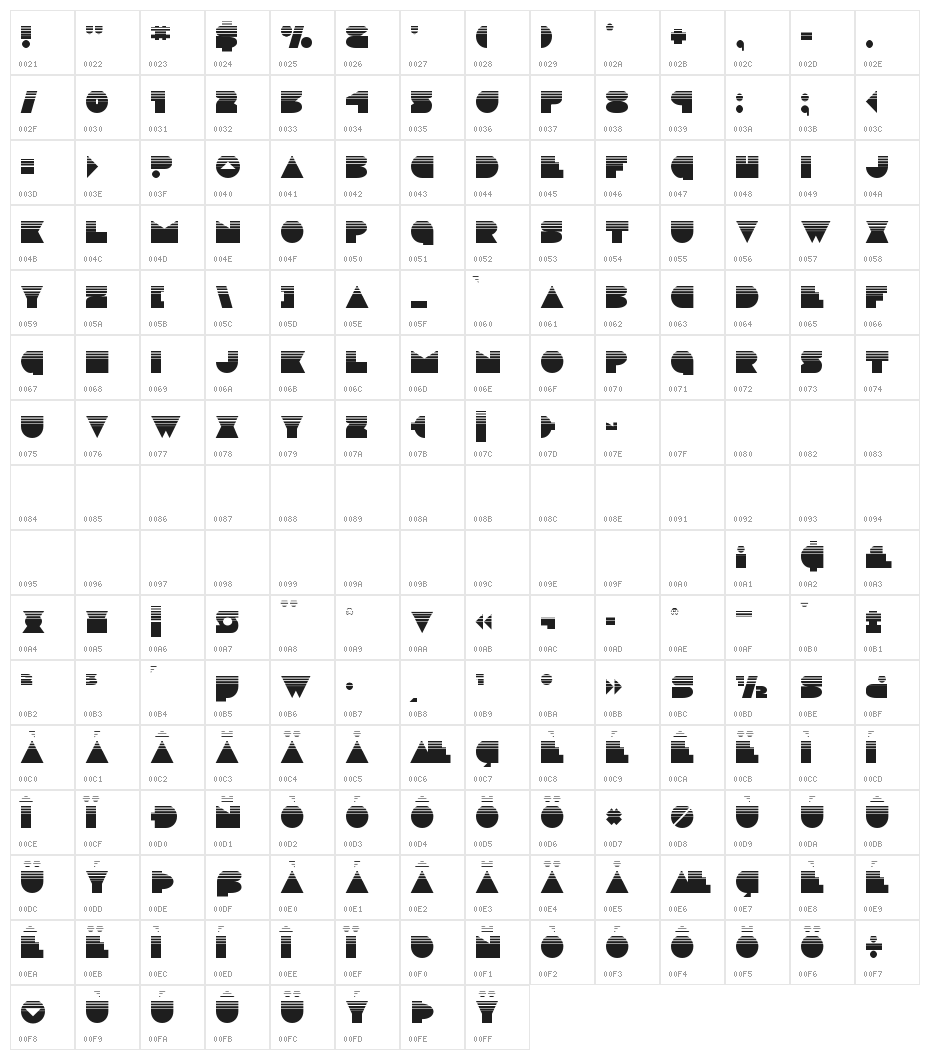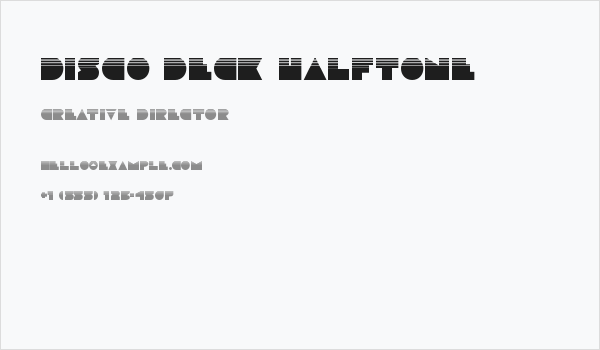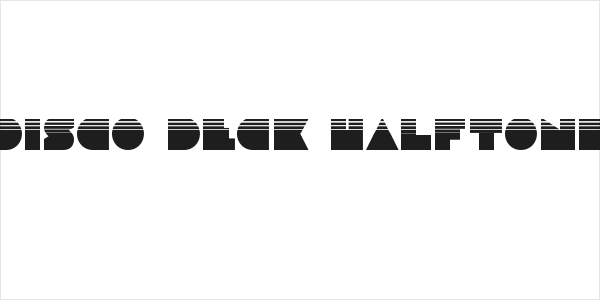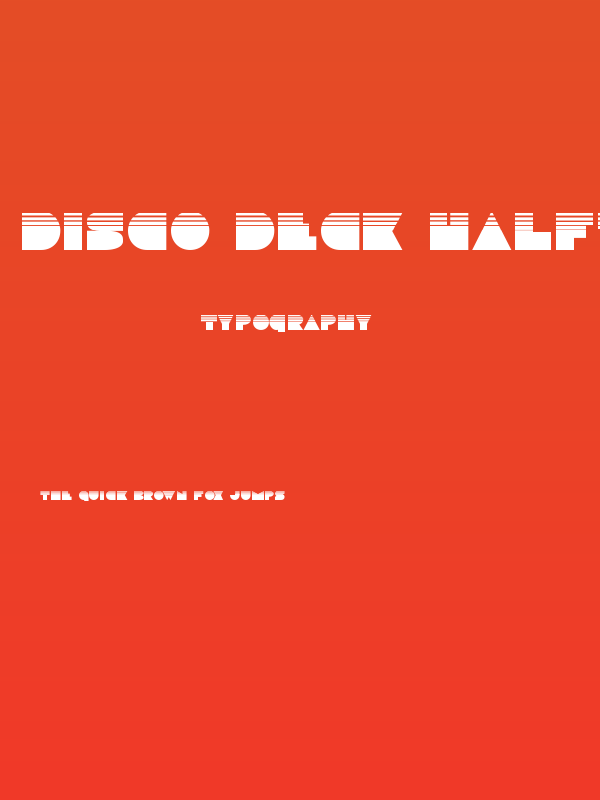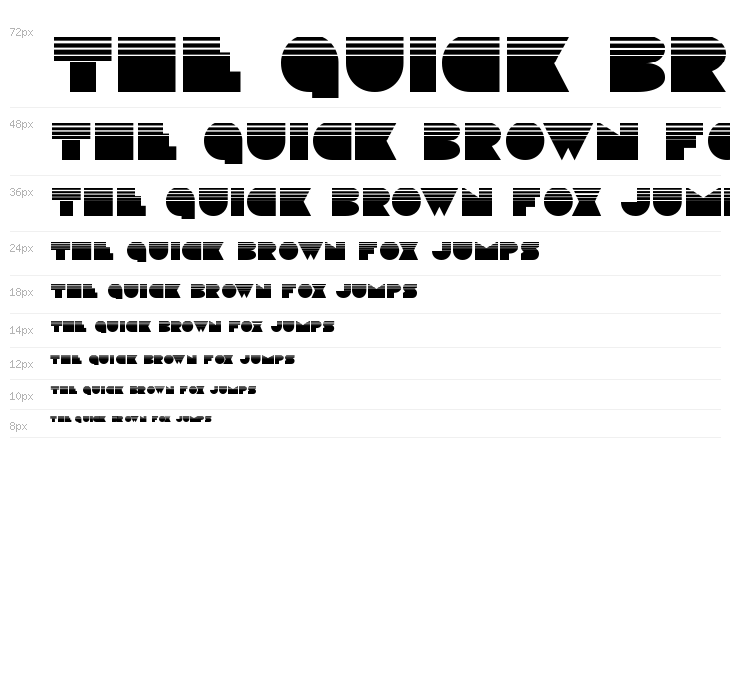
Disco Deck Halftone Font
Disco Deck Halftone Description
This font features a bold, geometric style with a distinct halftone pattern that gives it a retro, disco-inspired appearance. The characters are constructed with solid, block-like shapes, interspersed with horizontal lines that create a sense of movement and rhythm. The uppercase and lowercase letters share a consistent design, emphasizing the boldness and unique aesthetic. The numbers and special characters maintain the same stylistic elements, ensuring a cohesive look across all glyphs. This font's striking design makes it ideal for projects that require a vintage or playful touch.
| Proposed Projects | Ideal for retro-themed posters, album covers, event flyers, and branding that seeks a playful, vintage vibe. |